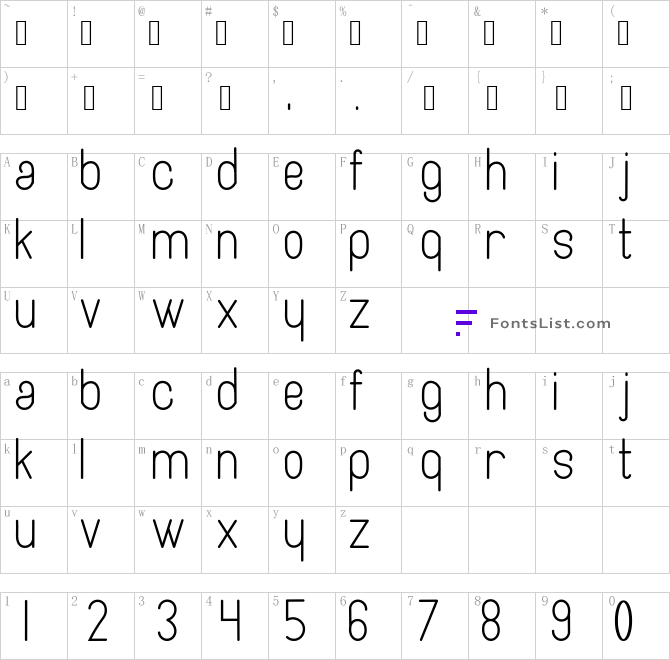
- Font Name:Artesana
Artesana.ttf is a very beautiful artistic font, Artesana.ttf is widely used in the design and printing of various books and pictures,Artesana.ttf has a strong visual impact,Artesana.ttf is a commonly used font in newspapers, magazines and books, and is used in posters, e-commerce Poster design, store design, logo design, font design and other fields.Artesana.